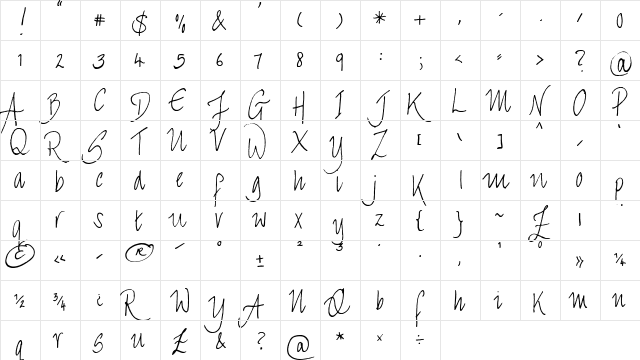
FG Gisela Regular
Design Context for FG Gisela Typeface
FG Gisela is a composed and adaptable typeface that performs quietly and consistently across a wide range of design contexts.